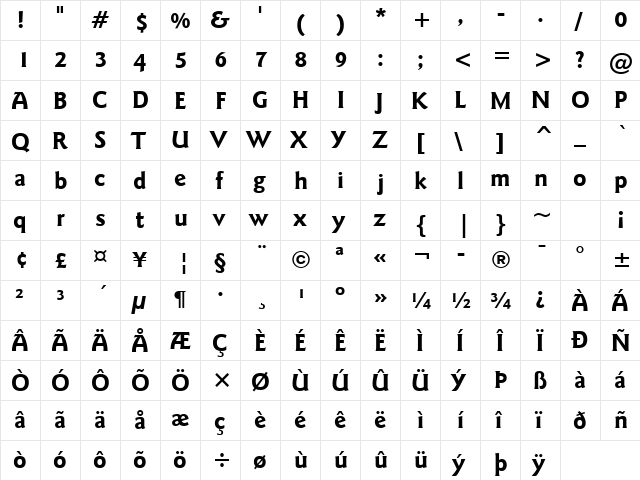
GoudySans Md BT Bold
Design Context for GoudySans Md BT Typeface
GoudySans Md BT takes a measured approach to typography — its balanced proportions and neutral character make it a reliable workhorse for both digital and print work. The heavy weight commands attention and anchors typographic hierarchies.